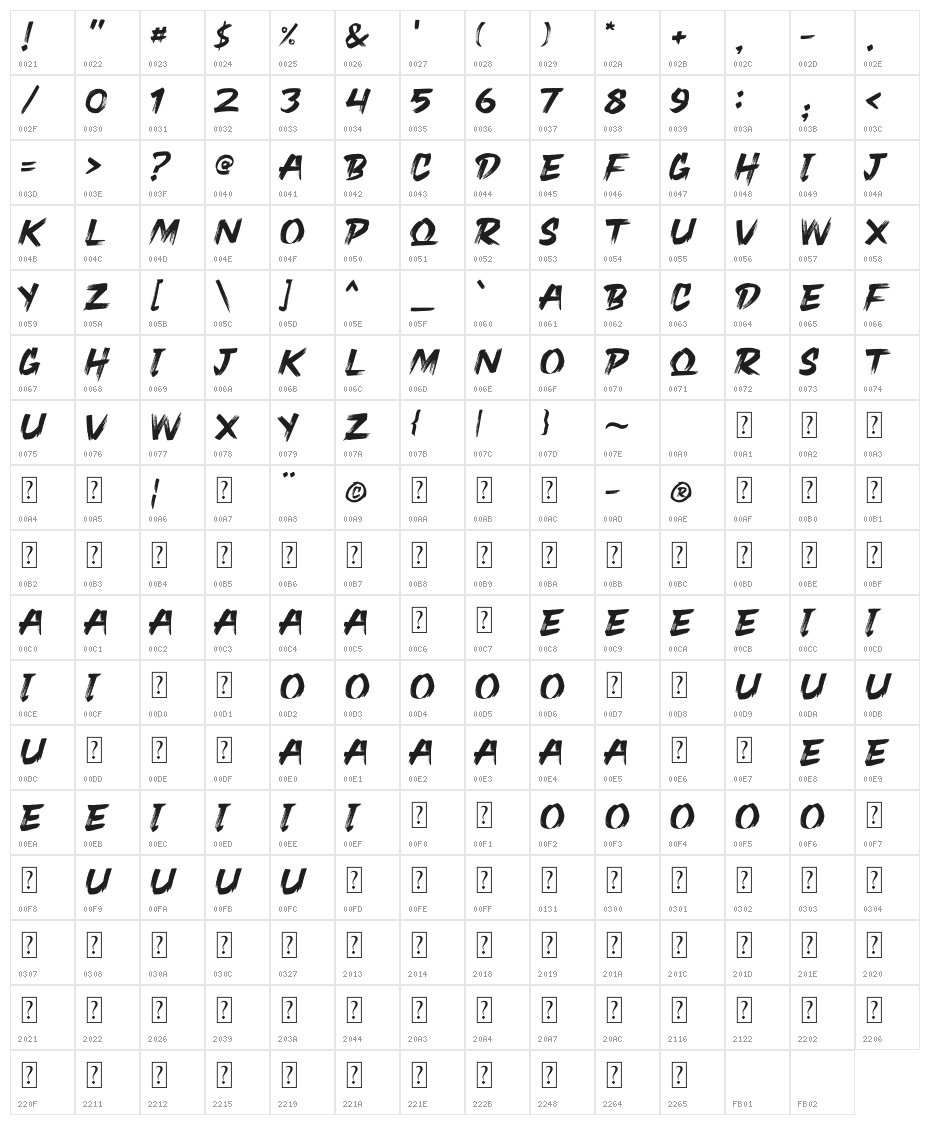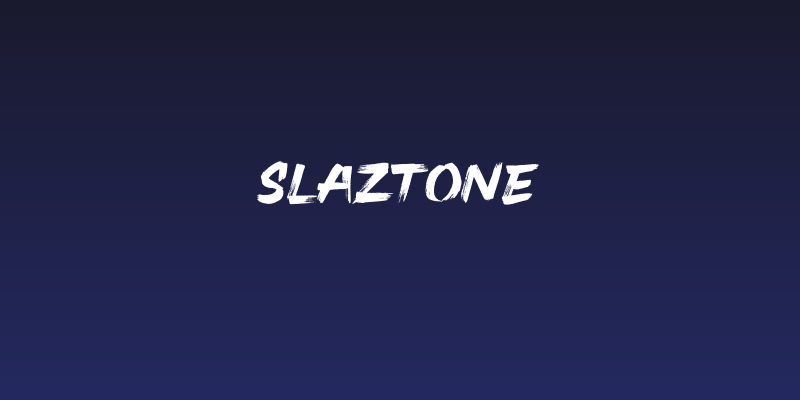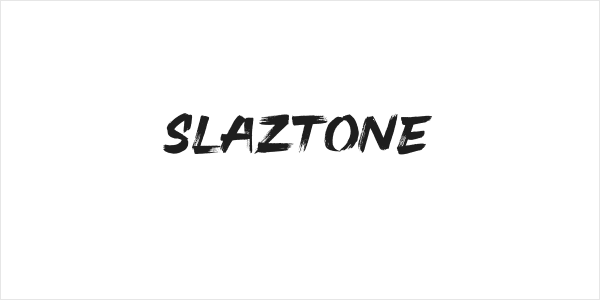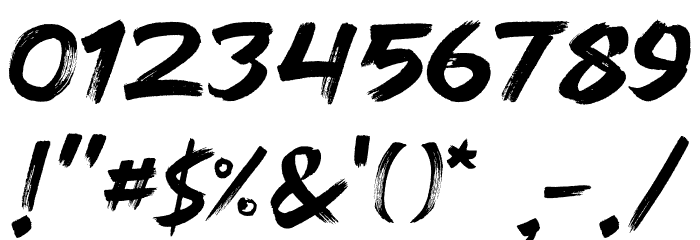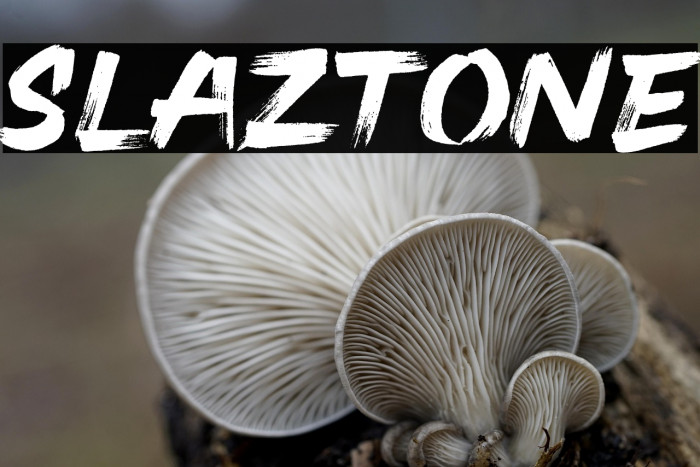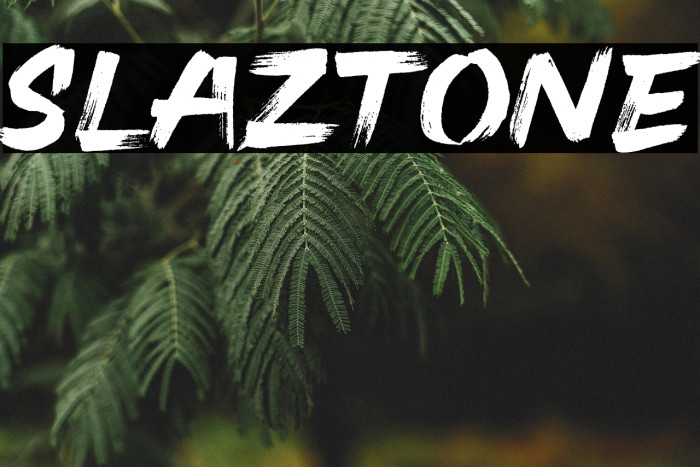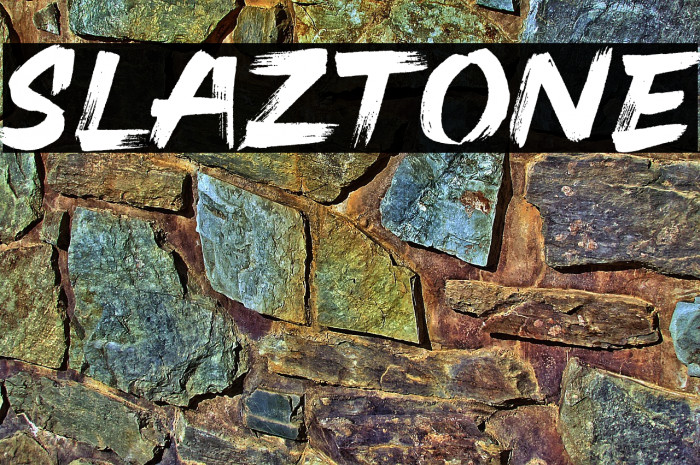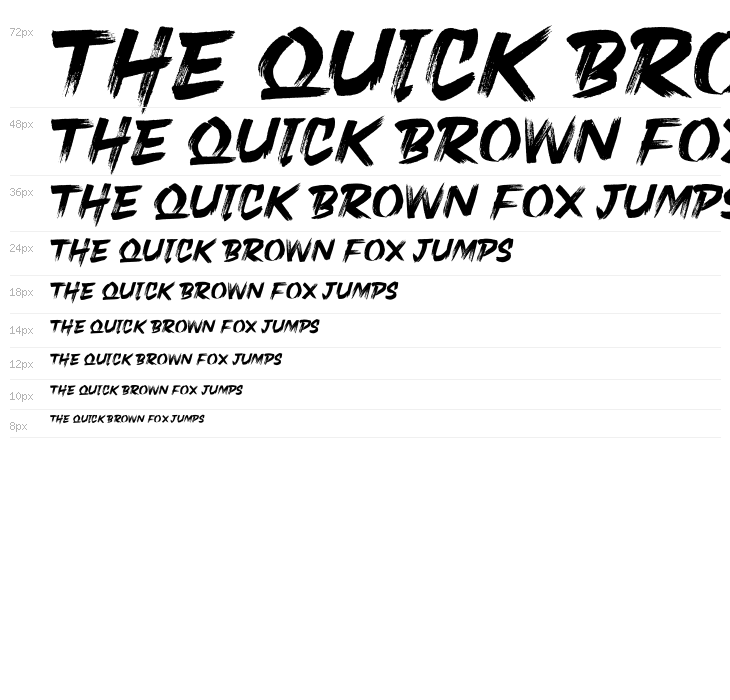
Slaztone Font
Slaztone Description
This font features a bold and energetic brush style, characterized by its dynamic strokes and textured appearance. The letters have a hand-painted look, with varying thickness that adds a sense of movement and spontaneity. The uppercase and lowercase letters maintain a consistent style, while the numbers and special characters complement the overall aesthetic. This font is ideal for projects that require a bold and artistic touch, such as posters, branding, and creative designs.
| Overall Style | Modern, Artistic |
| Proposed Projects | Ideal for posters, branding, creative designs, and any project needing an artistic flair. |